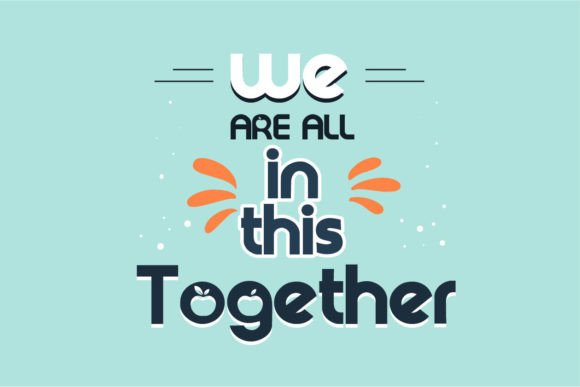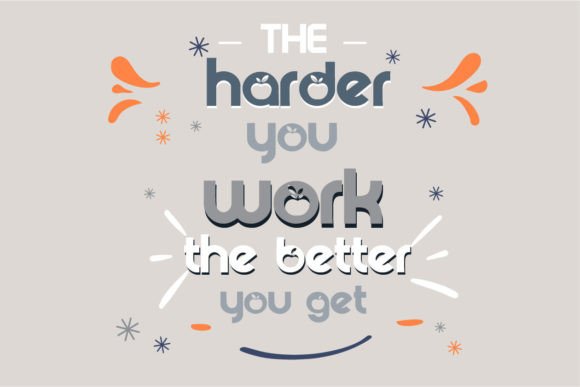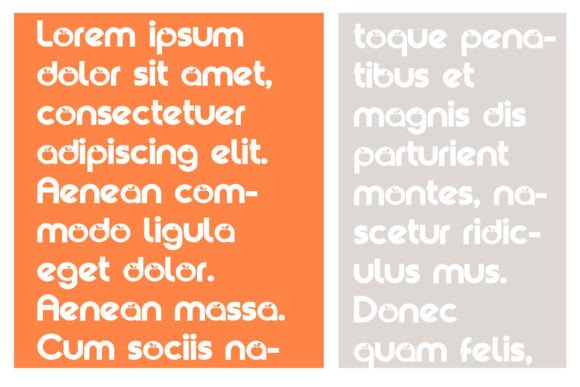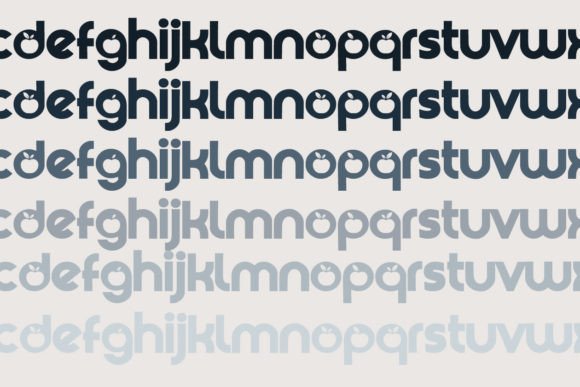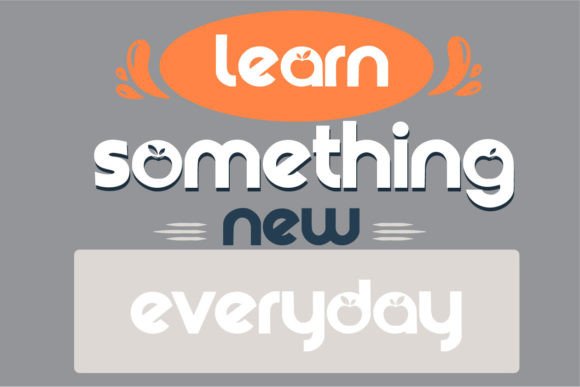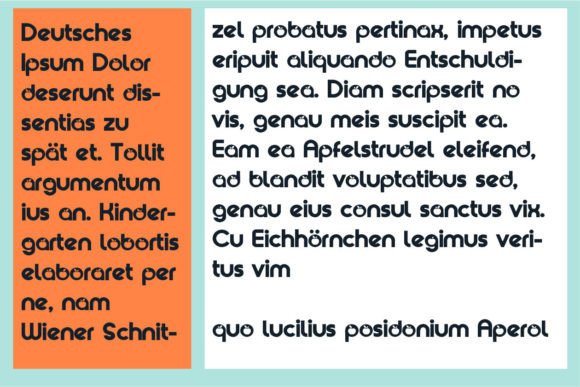
Introducing Apple for Teacher Font: The Perfect Addition to Your Design Toolbox
Are you a designer, crafter, or educator looking for a fun and unique font to add some personality to your projects? Look no further than the Apple for Teacher Font! This retro sans serif display font is sure to delight with its playful twist – apples for holes. In this article, we’ll dive into the features and benefits of this charming font, and explore how it can become your go-to choice for a variety of creative endeavors.
A Font that’s the Apple of Your Eye
The Apple for Teacher Font is a one-of-a-kind typeface that is sure to grab attention. Its sans serif design gives it a clean and modern look, while the apples for holes add a whimsical touch that’s perfect for a variety of projects. Whether you’re creating crafts, digital designs, presentations, or greeting cards, this font is sure to add a pop of personality and fun.
Key Features of Apple for Teacher Font
- Retro sans serif design: A clean and modern look that’s perfect for a variety of projects
- Apples for holes: A playful twist on traditional typography that adds a touch of whimsy
- Display font: Ideal for headlines, titles, and other display text
- Multipurpose: Suitable for crafts, digital design, presentations, greeting cards, and more
The Apple for Teacher Font is a versatile typeface that’s perfect for designers and crafters alike. Its unique design makes it ideal for a variety of projects, from digital designs and presentations to crafts and greeting cards. Whether you’re creating something for personal use or for a client, this font is sure to add a touch of personality and fun.
Ideas for Using Apple for Teacher Font
So, how can you use the Apple for Teacher Font in your projects? Here are a few ideas to get you started:
- Crafts: Use the font to create custom signs, banners, and other decorative items for parties, events, and everyday decor
- Digital design: Add a playful touch to your website, social media graphics, and other digital projects
- Presentations: Use the font to create engaging and interactive presentations for school, work, or personal projects
- Greeting cards: Create custom greeting cards for special occasions, such as birthdays, holidays, and teacher appreciation
Why Apple for Teacher Font is a Great Choice
So, why should you choose the Apple for Teacher Font for your next project? Here are just a few reasons:
- Unique design: The font’s playful twist on traditional typography makes it stand out from the crowd
- Versatility: The font is suitable for a wide range of projects and applications
- Fun and engaging: The font adds a touch of personality and fun to any project
In conclusion, the Apple for Teacher Font is a fun, retro sans serif display font that’s perfect for designers, crafters, and educators. Its unique design, versatility, and ease of use make it an excellent addition to any design toolbox. Whether you’re creating crafts, digital designs, presentations, or greeting cards, this font is sure to become your go-to choice. So why wait? Download the Apple for Teacher Font today and start adding a touch of personality and fun to your projects!
Tips and Tricks for Using Apple for Teacher Font
Here are a few tips and tricks for getting the most out of the Apple for Teacher Font:
- Experiment with different sizes and colors: The font looks great in a variety of sizes and colors, so don’t be afraid to experiment
- Pair with other fonts: Try pairing the Apple for Teacher Font with other fonts for a unique and interesting look
- Use for headlines and titles: The font is ideal for headlines and titles, but you can also use it for body text for a more playful look
With these tips and tricks, you’ll be well on your way to becoming an Apple for Teacher Font pro! Whether you’re a seasoned designer or a crafty beginner, this font is sure to bring a smile to your face and a touch of personality to your projects.